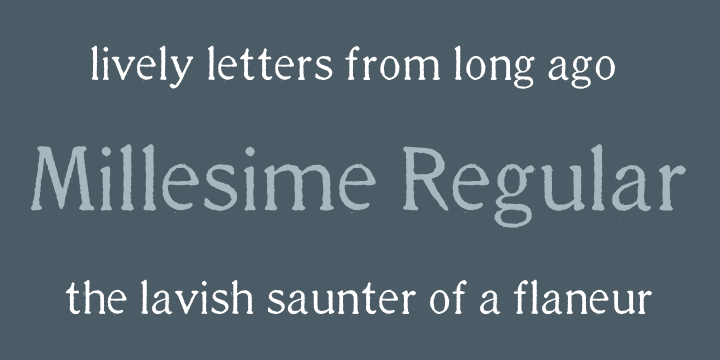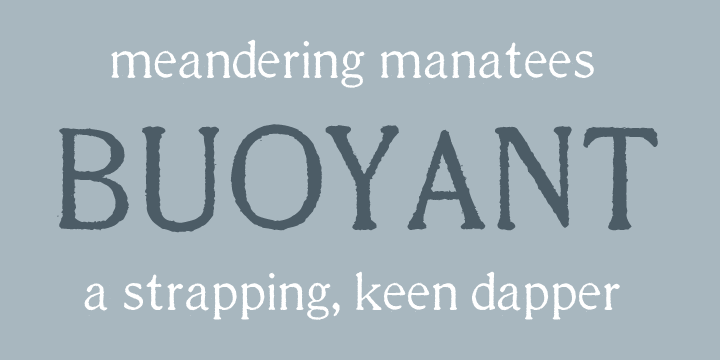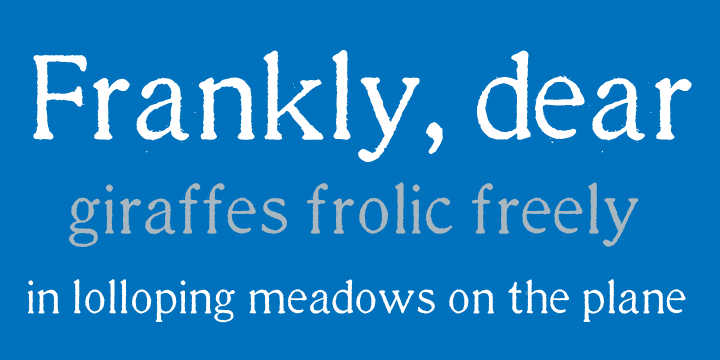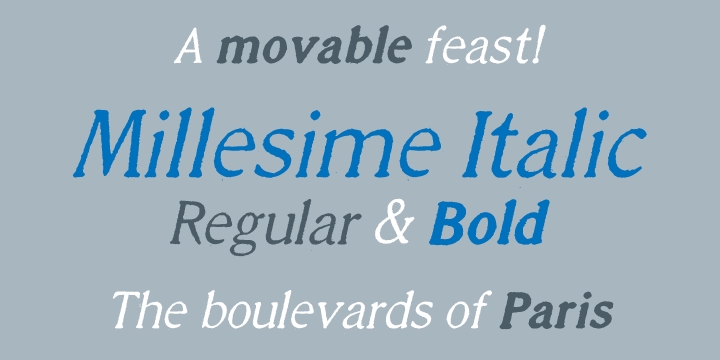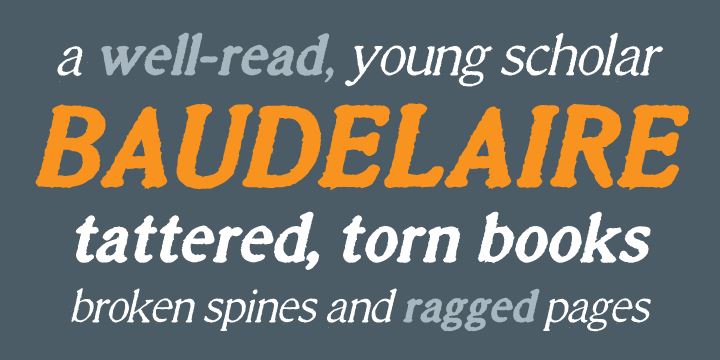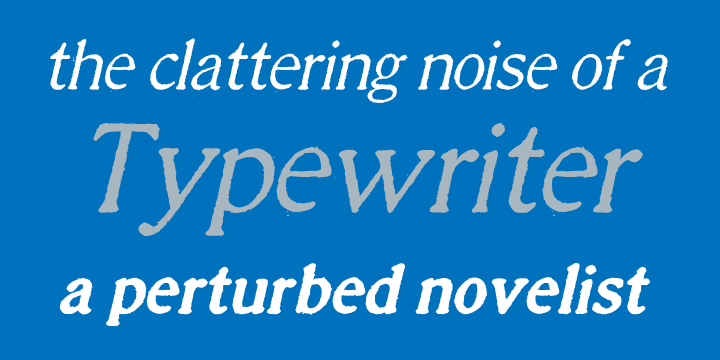
Millesime
Font Family by Chank Co
Inspired by printed texts from 18th century France, Millesime has a gritty grainy texture that adds a natural and sentimental feel to this stylish rusty style font.